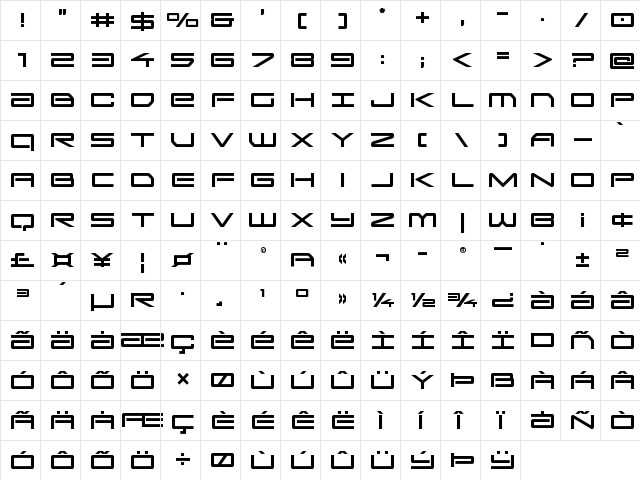
Sky Ridge Title Regular
Regular ·  Daniel Zadorozny ·
DesignerDaniel Zadorozny
Design Context for Sky Ridge Title Typeface
Sky Ridge Title is a composed and adaptable typeface that performs quietly and consistently across a wide range of design contexts.